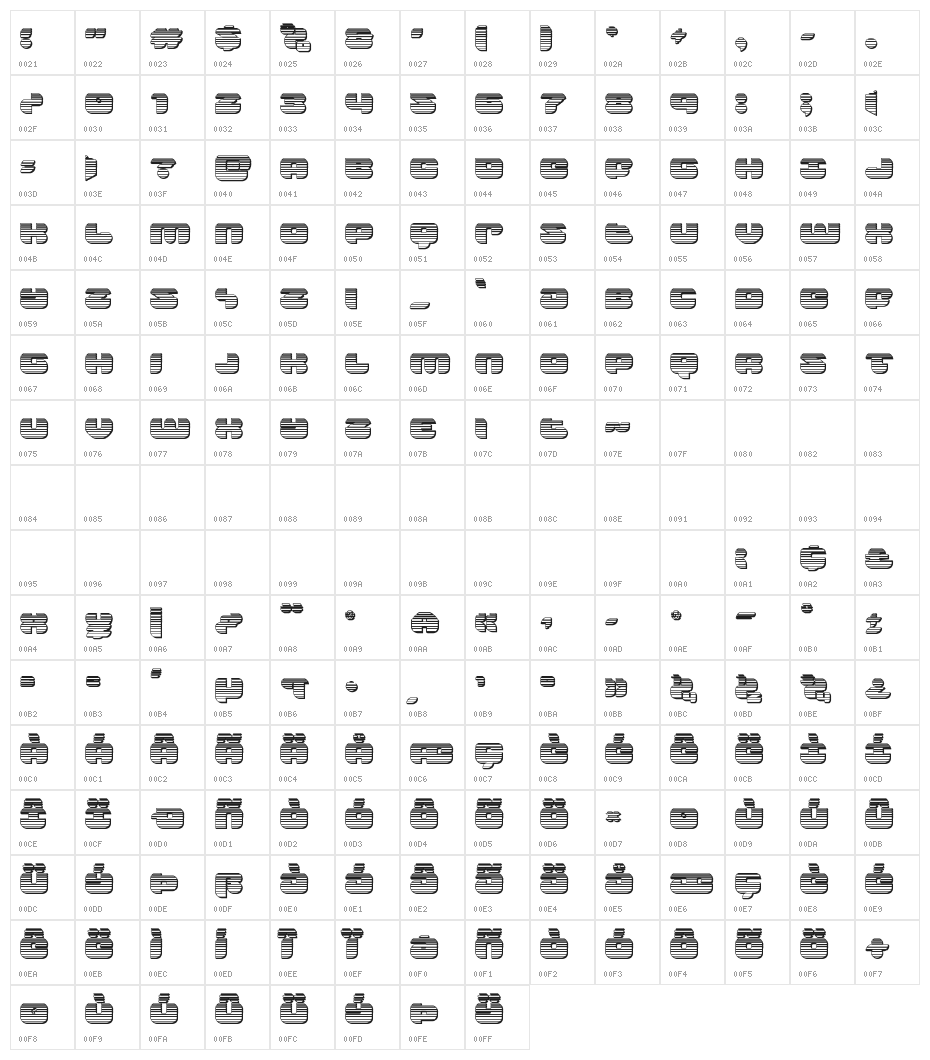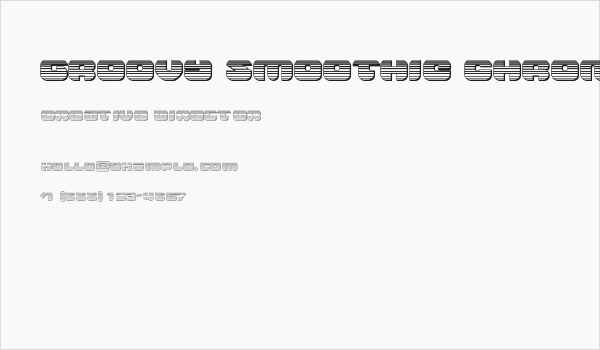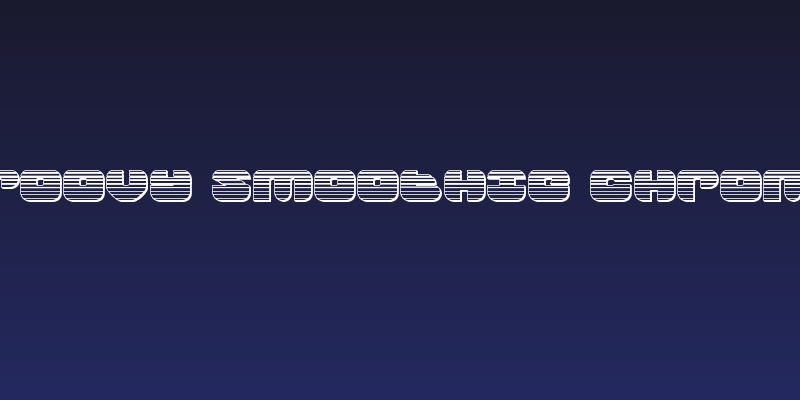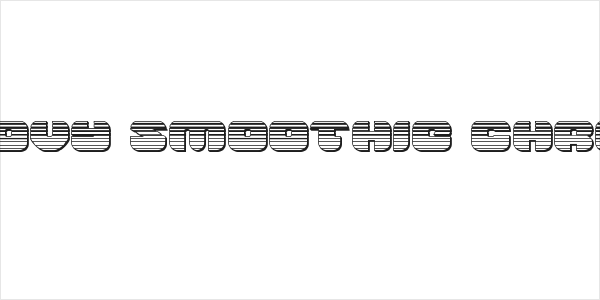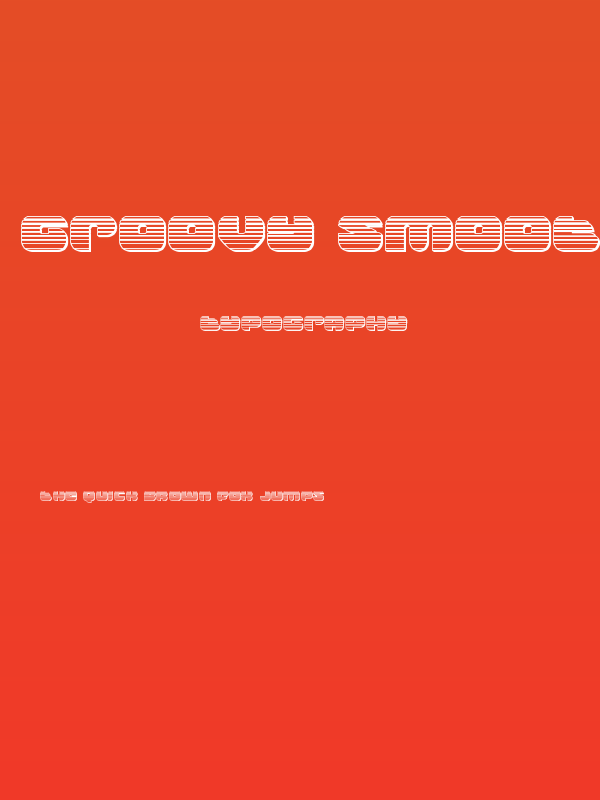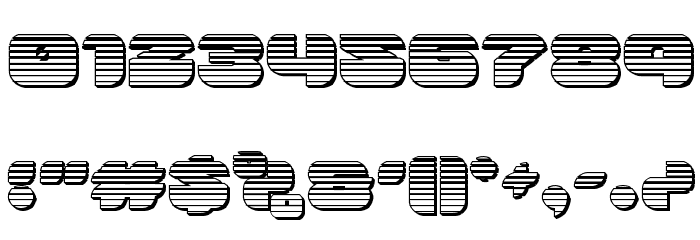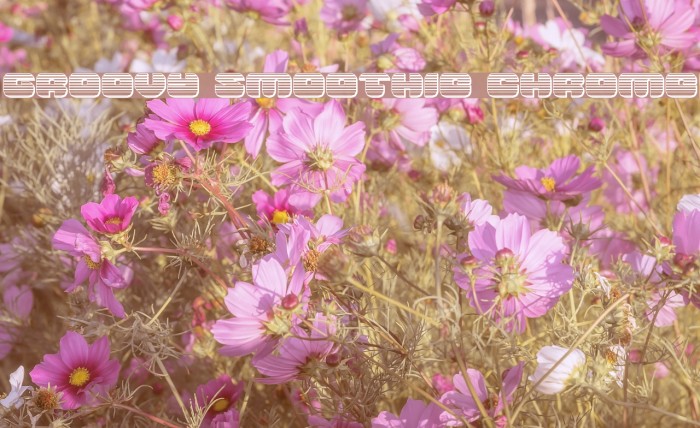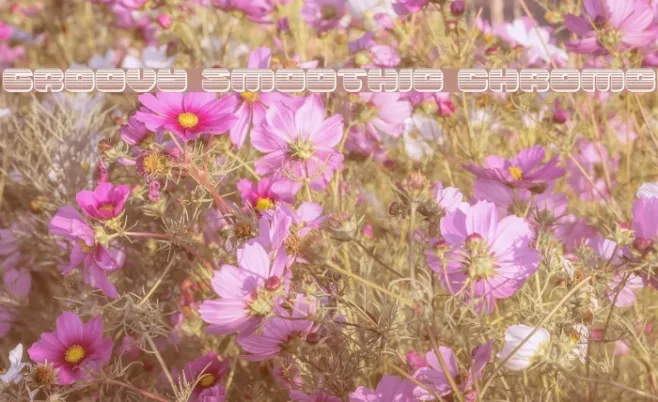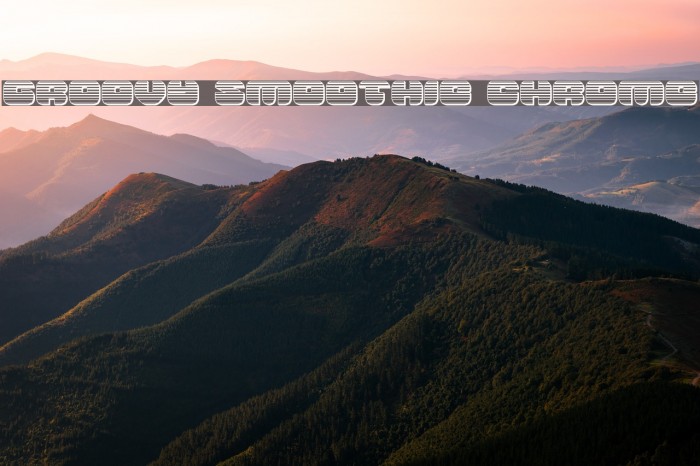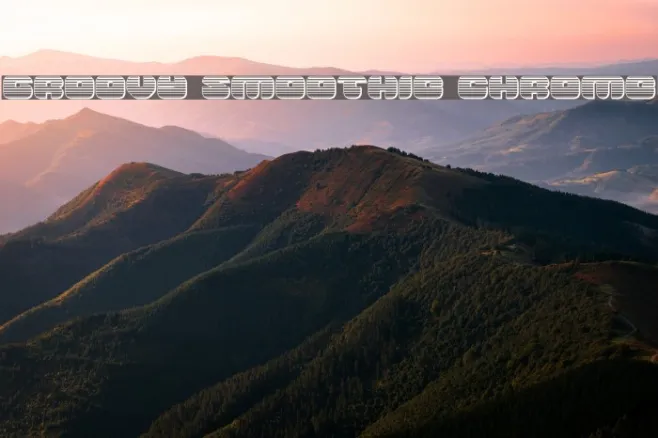
Groovy Smoothie Chrome Font
Groovy Smoothie Chrome Description
This font features a bold, geometric design with a unique striped pattern running horizontally across each character. The letters are rounded and have a futuristic, digital feel, reminiscent of retro computer graphics. The consistent line thickness and spacing give it a cohesive and structured appearance. The font includes both uppercase and lowercase letters, numbers, and a variety of special characters, making it versatile for different uses. Its distinct style makes it stand out, ideal for projects that require a modern and eye-catching aesthetic.
| Proposed Projects | Ideal for digital art, retro-themed designs, video game graphics, and modern branding projects. |